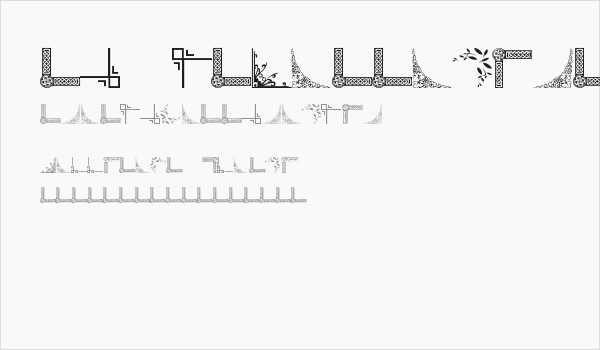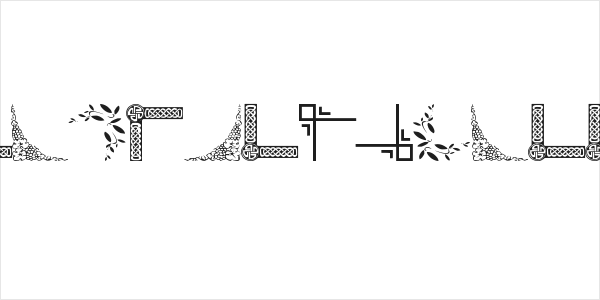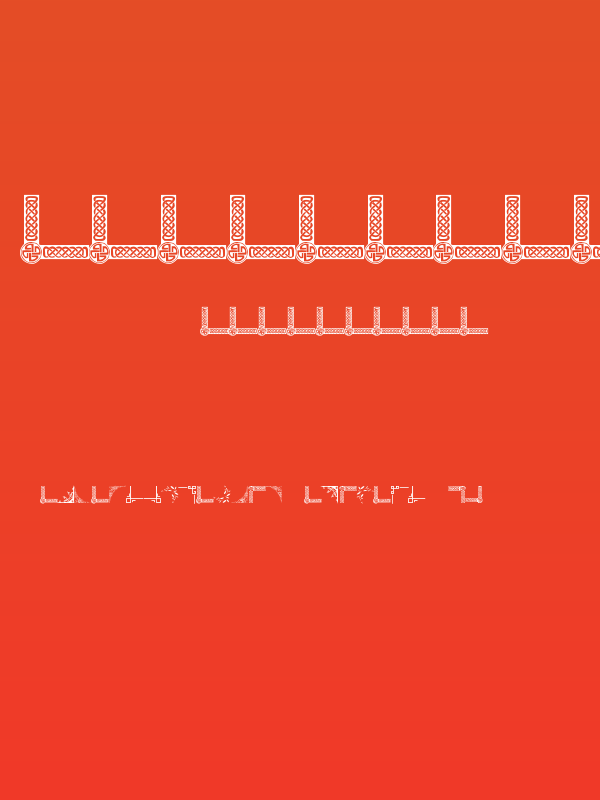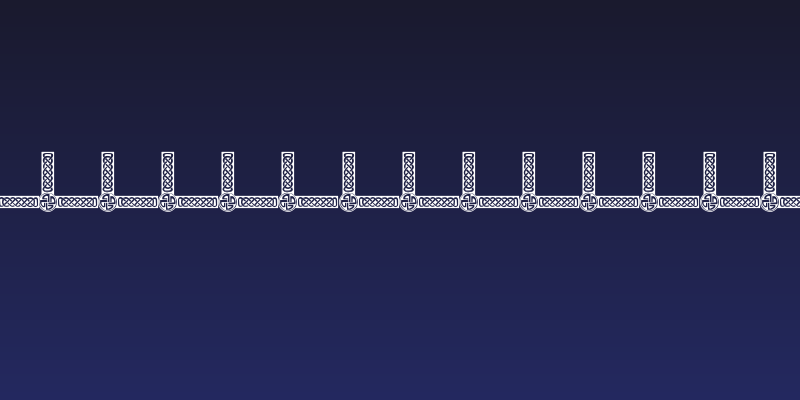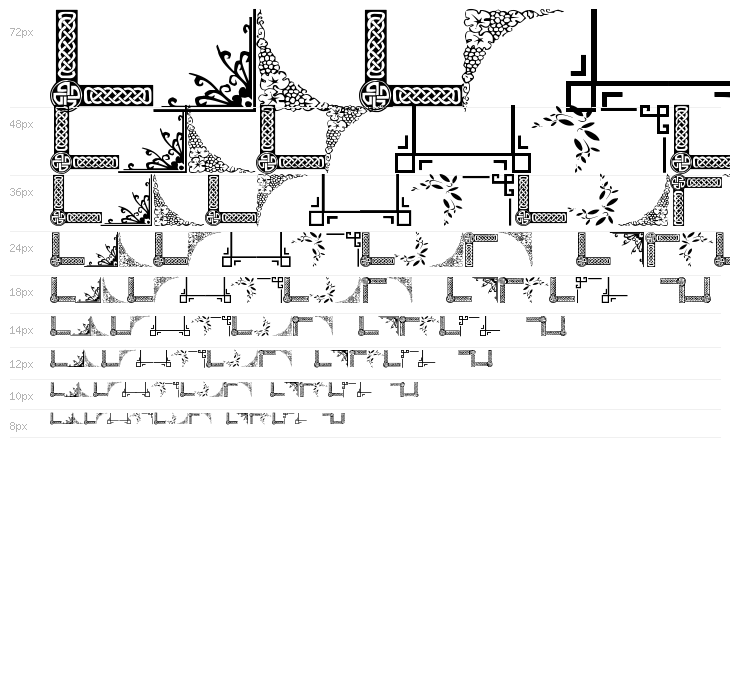
Vintage Decorative Corners 5 Font
Vintage Decorative Corners 5 Description
A decorative set of vintage-inspired corner and border elements featuring intricate patterns, floral motifs, and geometric designs. The elements are highly ornamental, with a mix of Celtic knotwork, floral flourishes, and Art Deco-style corners, suitable for embellishing frames, invitations, or certificates.
| Overall Style | Vintage, Decorative |
| Use Case | Borders, Frames, Decorative accents |
| Proposed Projects | Wedding invitations, certificates, book covers, greeting cards, decorative frames, vintage-themed posters. |